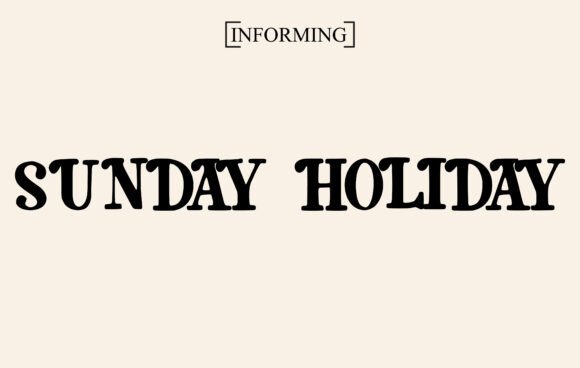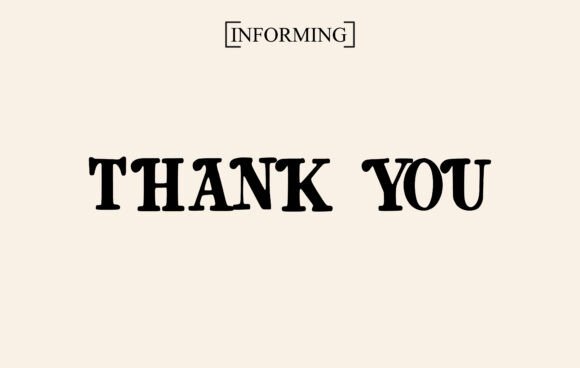
Introduction to Nisa Font
Have you ever been working on a creative project, pouring your heart and soul into it, and then suddenly, the perfect font pops up in your mind’s eye? For designers, this moment is pure magic. It’s the spark that sets the tone for the entire design and elevates it to a whole new level. This is exactly what the Nisa Font promises to deliver – a true favorite that will take your creative ideas to new heights.
As a valuable design resource, Nisa Font is designed to be both legible and visually appealing, making it perfect for a wide range of applications, from magazine headlines to social media graphics. With its versatility, you can use it as a title or body text, and its high quality will ensure that your design stands out from the crowd.
Nisa Font Key Features
- Unique, modern design aesthetic, perfect for adding a touch of sophistication to any creative project
- Designed to be versatile, making it suitable for a wide range of design applications
Honest Review: Nisa Font
I recently had the chance to work with the Nisa Font for a creative project and I must say it’s been a great addition to my design resource library. ✨ The font has a unique and modern feel to it, perfect for anything from digital displays to print materials.
One of the things that stood out to me was the high quality of the font. The lines are crisp, the spacing is even, and the overall design is well thought out. This makes it a great choice for any project where you want to ensure that your text looks its best.
- High quality design and crisp lines
- Unique and modern feel
- May not be the best choice for projects that require a more traditional or serif font
Nisa Font
Tips for Getting the Most Out of Nisa Font
The Nisa Font is perfect for a variety of creative projects, including logos, brochures, and social media graphics. Its high-quality design makes it a great resource for designers and non-designers alike.
Alternatives to Nisa Font
The Great Vibes Font is a beautiful, elegant script font perfect for creative projects that require a touch of sophistication. It’s ideal for use on wedding invitations, business cards, or any design that needs a high-quality, handwritten look. Great Vibes Font has a more refined feel compared to Nisa Font, making it suitable for formal events or corporate branding. It’s available for free download and features a transparent background, making it easy to layer over other design elements.
The Alex Brush Font is a unique, hand-painted script font that’s perfect for designers looking for a high-quality, artistic look. It’s ideal for use on creative projects that require a touch of whimsy, such as children’s book illustrations or advertising campaigns. Alex Brush Font has a more playful feel compared to Nisa Font, making it suitable for fun and quirky branding or packaging design. It’s available for free download and features a transparent background, making it easy to customize and layer over other design elements.